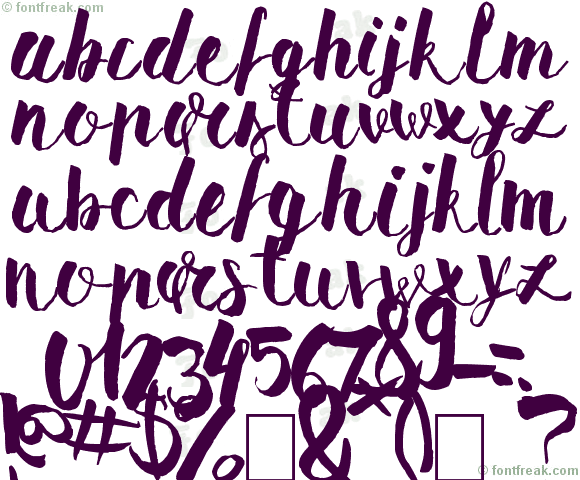
Pomah Type
Pomah Type by Leonard Posavec is a captivating display font that exudes a playful yet sophisticated charm. This handwritten typeface showcases fluid, flowing letterforms that dance across the page with a natural rhythm. The strokes feature a medium weight, providing a delightful contrast that enhances readability while still maintaining a whimsical feel. The generous spacing between characters allows each letter to breathe, making it an excellent choice for projects that require a personal touch.
This font shines in various applications, making it a versatile addition to any designer's toolkit. It's particularly well-suited for wedding invitations, where its elegant curves can beautifully convey romance and joy. Additionally, Pomah Type is perfect for restaurant menus, adding a unique flair that can entice diners and elevate the dining experience. It also works wonderfully on social media graphics, helping content creators capture attention in a crowded digital landscape. Movie posters can benefit from its distinct style, creating an inviting and memorable visual impact that draws viewers in.
What sets Pomah Type apart is its ability to combine elegance with a friendly demeanor, making it a standout choice for a variety of creative endeavors. Whether you're crafting a heartfelt invitation or designing an eye-catching advertisement, the Pomah Type font free download will add a unique character that resonates with audiences and leaves a lasting impression.